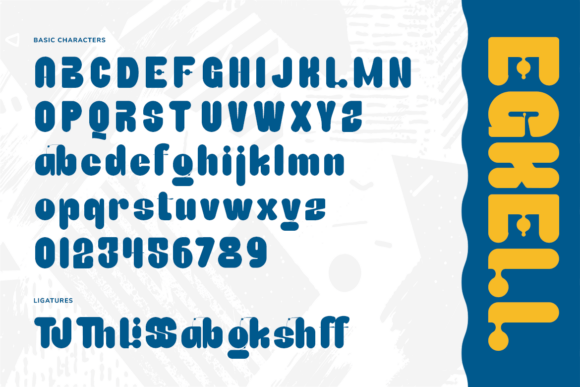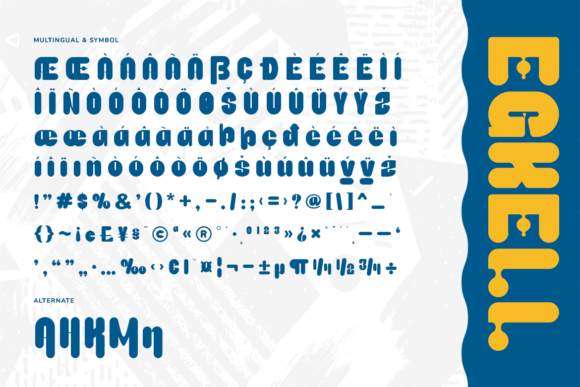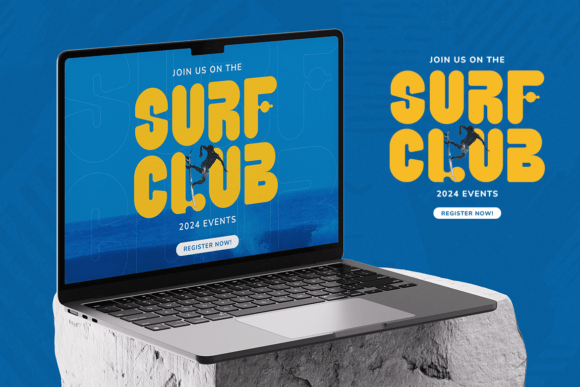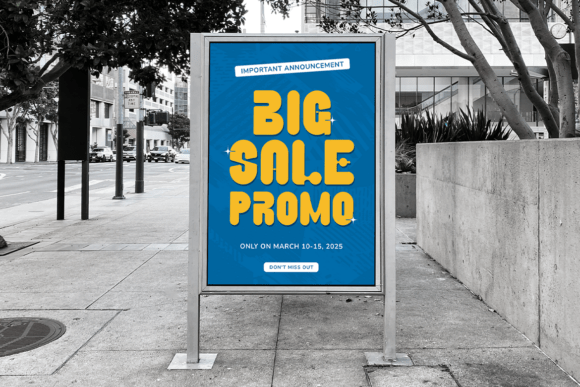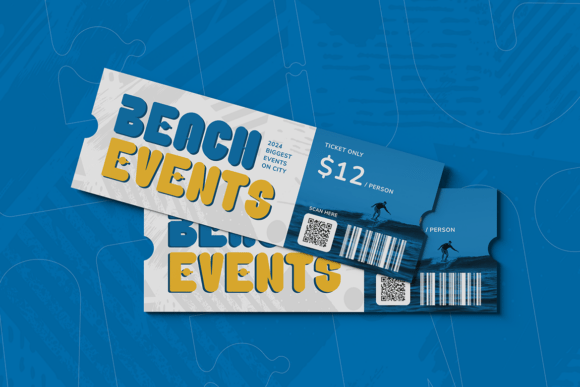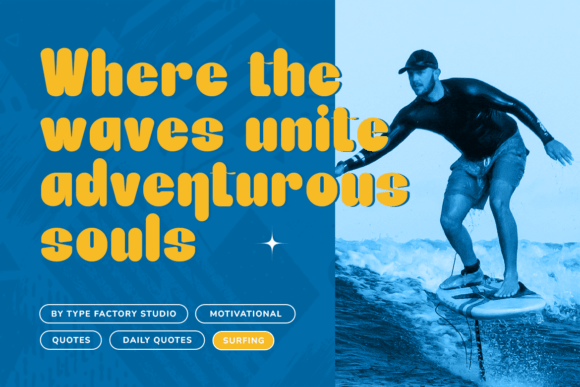
Introducing Egkell Font: A Bold and Friendly Display Font
Are you looking for a font that can make a strong visual statement and capture the attention of your audience? Look no further than Egkell, a bold rounded display font that combines geometric structure with playful details. Designed for headlines and large-scale typography, Egkell is perfect for designers and crafters who want to add a friendly and eye-catching touch to their projects.
What Makes Egkell Unique?
Egkell is built with thick strokes and soft curved terminals, giving it a unique and distinctive appearance. The letterforms are carefully crafted to combine geometric structure with playful details, creating a friendly and approachable tone. The rounded edges of the font make it perfect for designs that require a softer, more inviting feel.
Perfect for Large-Scale Typography
Egkell is designed specifically for large-scale typography, making it ideal for headlines, posters, branding, social media graphics, event promotions, packaging, web banners, and merchandise design. The font’s solid weight ensures that it remains highly visible in both print and digital layouts, while the rounded edges give it a friendly and approachable tone.
Key Features of Egkell Font
- Uppercase and Lowercase Letters: Egkell includes both uppercase and lowercase letters, providing flexibility and versatility for your designs.
- Numerals and Punctuation: The font includes a range of numerals and punctuation marks, ensuring that you have everything you need to create professional-looking designs.
- Multilingual Support: Egkell supports multiple languages, making it a great choice for designers who work with international clients or want to create designs for a global audience.
- Selected Ligatures: The font includes selected ligatures, which provide flexible typographic combinations and help to create a more natural, flowing text.
Why Choose Egkell Font?
There are many reasons why Egkell font stands out from the crowd. Here are just a few:
- Unique and Eye-Catching: Egkell’s bold and rounded design makes it perfect for headlines and large-scale typography.
- Flexible and Versatile: The font’s range of characters, numerals, and punctuation marks make it suitable for a wide range of design projects.
- Approachable and Friendly: Egkell’s rounded edges and soft curved terminals give it a friendly and approachable tone, making it perfect for designs that require a softer feel.
- Highly Visible: The font’s solid weight ensures that it remains highly visible in both print and digital layouts.
How to Use Egkell Font in Your Designs
Egkell font is perfect for a wide range of design projects, including:
- Posters and Flyers: Use Egkell to create bold and eye-catching headlines that grab attention.
- Branding and Logo Design: Egkell’s unique and friendly design makes it perfect for branding and logo design projects.
- Social Media Graphics: Use Egkell to create engaging and eye-catching social media graphics that stand out from the crowd.
- Event Promotions: Egkell is perfect for event promotions, including posters, flyers, and social media graphics.
- Packaging Design: Use Egkell to create bold and eye-catching packaging designs that stand out on store shelves.
Egkell font is a bold and friendly display font that is perfect for designers and crafters who want to add a unique and eye-catching touch to their projects. With its thick strokes, soft curved terminals, and geometric structure, Egkell is ideal for large-scale typography and headlines. Its range of characters, numerals, and punctuation marks make it flexible and versatile, while its rounded edges give it a friendly and approachable tone. Whether you’re working on a poster, branding project, or social media graphic, Egkell font is a great choice.